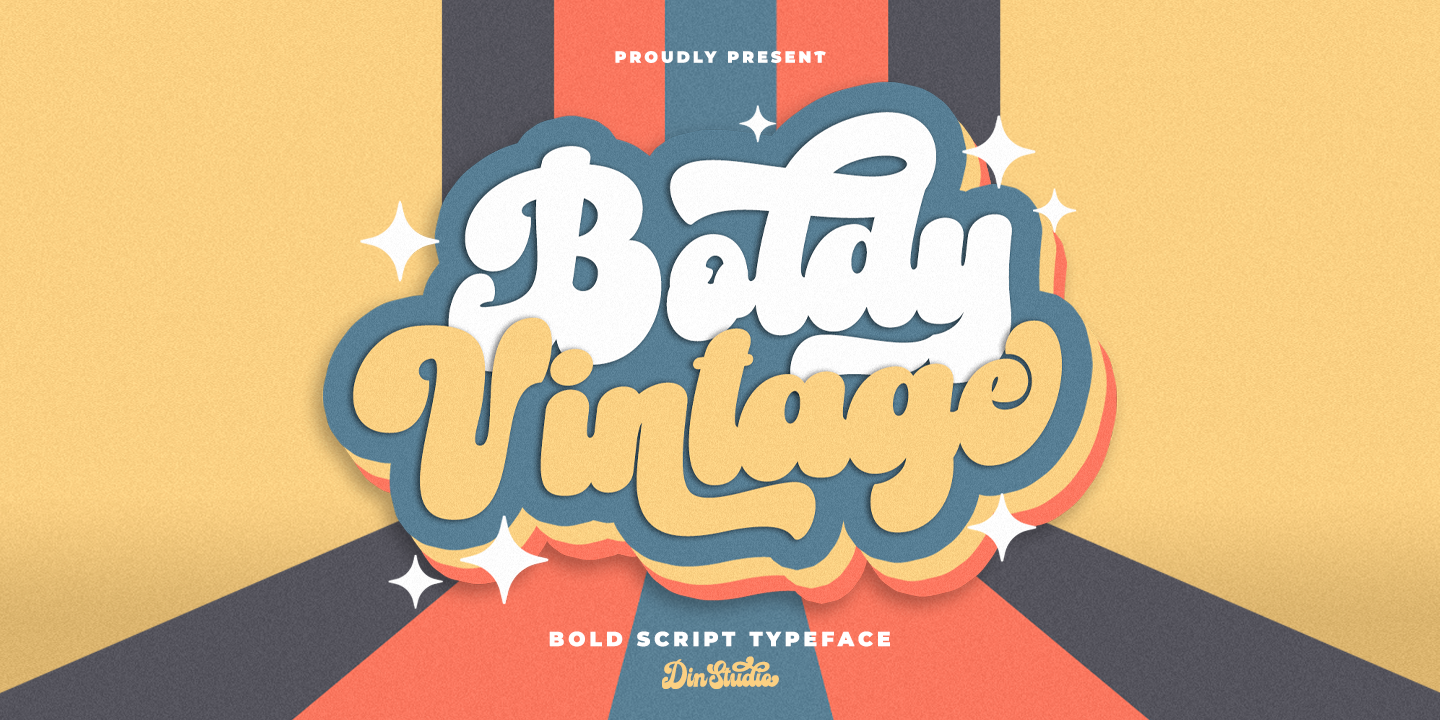
Boldy Vintage Free Download
This confident font is perfect for retro advertising campaigns, vintage barbershop branding, classic automotive marketing, old-school brewery labels, heritage brand identities, nostalgic poster designs, traditional craftsmanship signage, and authentic americana projects. Its robust character makes it ideal for projects requiring bold vintage appeal and timeless masculine confidence.
Boldy Vintage Font is exciting because it embodies the fearless spirit of classic American craftsmanship with letterforms that appear forged by skilled artisans and weathered by generations of honest work. The font features strong construction, confident proportions, and authentic vintage details that reflect the uncompromising quality and bold determination of traditional American industry. Its masculine personality instantly communicates strength, reliability, and the enduring appeal of handcrafted excellence.
The Boldy Vintage Font family typically includes multiple robust weights and aged variations, along with vintage ornaments, classic symbols, and traditional decorative elements. Many versions feature alternate characters with different weathering effects and special glyphs that enhance the authentic vintage atmosphere and heritage craftsmanship aesthetic.
Whether you're developing heritage brands, traditional craft businesses, or nostalgic lifestyle campaigns, Boldy Vintage Font Free Download provides authentic vintage authority with contemporary functionality. This typeface transforms standard communications into powerful declarations that resonate with audiences who appreciate traditional values, quality craftsmanship, and the bold confidence of bygone eras. Its distinctive character adds immediate heritage credibility while celebrating the enduring strength of Boldy Vintage Font Free Download and the timeless appeal of bold, honest craftsmanship that built the foundation of American enterprise.